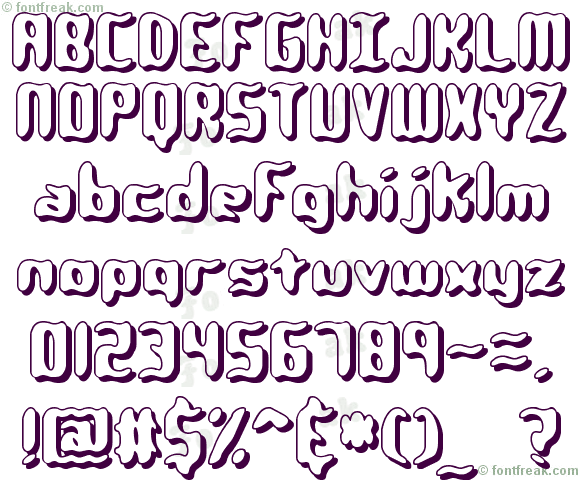
Qlumpy -BRK-
Qlumpy Shadow -BRK-
Qlumpy, designed by Ænigma Fonts, is a distinctive display font that captures attention with its whimsical and playful aesthetic. This freeware typeface showcases a unique combination of bold, rounded letterforms that create a friendly and approachable vibe. The stroke weight is consistent, giving the font a solid presence, while the slightly exaggerated curves add a touch of uniqueness. The spacing between characters is generous, enhancing readability while maintaining a playful spirit. Decorative elements are subtly integrated, making Qlumpy a versatile choice for various design applications.
This font is particularly well-suited for creative projects that require a fun and engaging typeface. Its charming style makes it an excellent choice for designing wedding invitations, where a personal touch is essential. Additionally, Qlumpy is perfect for movie posters, especially for indie films or family-oriented productions that aim to convey a sense of joy and creativity. Restaurant menus can also benefit from this font, as it adds a whimsical flair that can make dining experiences feel more inviting. Furthermore, small business owners, particularly those in creative industries like craft shops or children's products, will find Qlumpy invaluable for branding and promotional materials.
The target audience for the Qlumpy font includes graphic designers, small business owners, and content creators who seek a typeface that stands out and resonates with their audience. Its unique characteristics and versatility make it applicable across various mediums, from print to digital.
In summary, Qlumpy is a remarkable font that combines playfulness with readability, making it an ideal choice for creative projects. Its free download option allows designers to easily incorporate this charming typeface into their work, ensuring that their designs are both engaging and memorable.